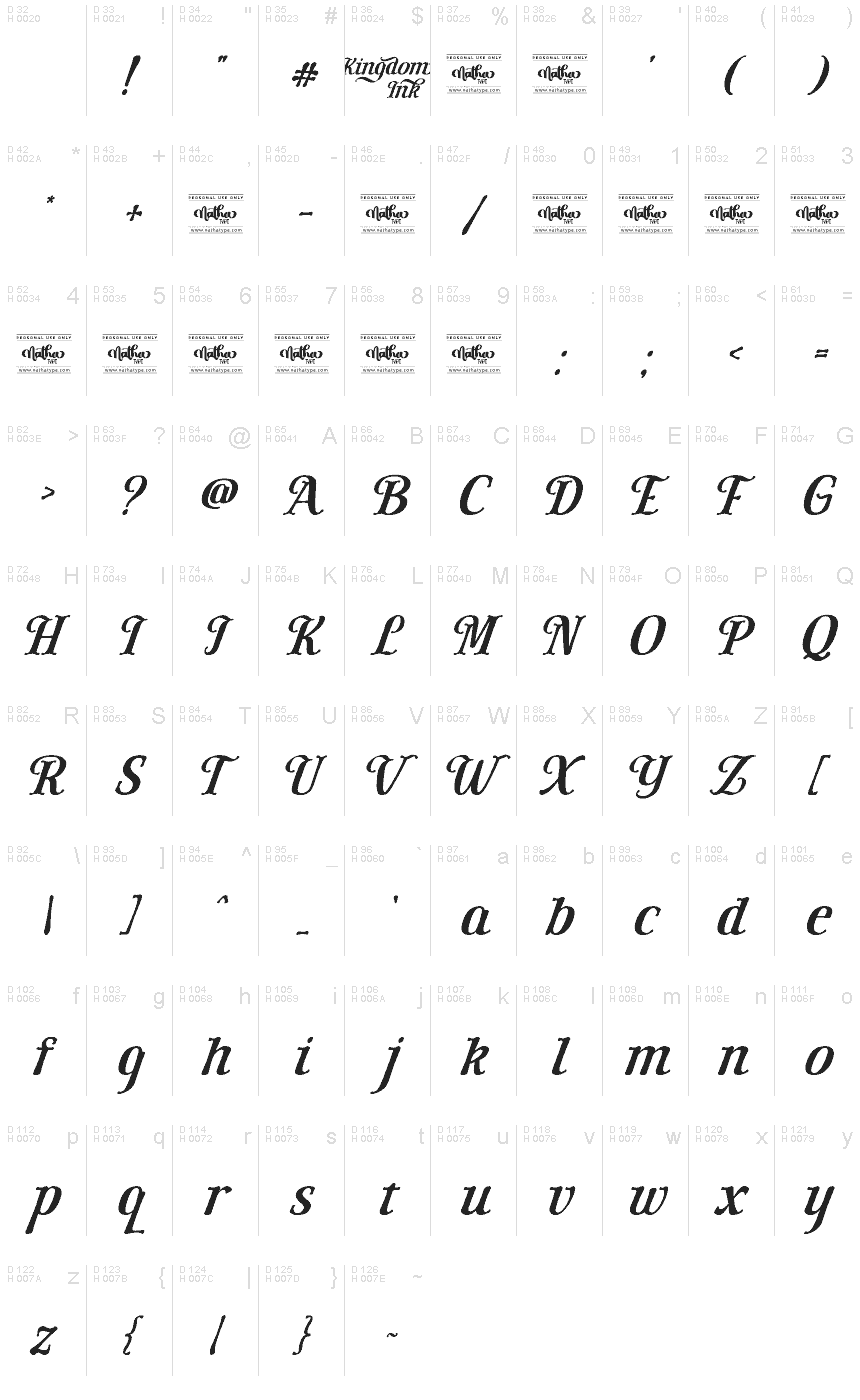
Kingdom Ink Personal Use
Kingdom Ink font designed by Nathatype is a stunning free brush font that will instantly appeal to your senses. The elegant, sophisticated, and classic look of this font is well complemented by its flowing appearance which ensures harmony and traditional appeal. Each character is beautifully formed with fine textures to present the best possible result in professional design projects.
Use Kingdom Ink in business cards, invitations, posters or branding projects for clothing lines, cafes or spas. It can be also great when used on blogs along with logos either for personal use or commercial purposes. Labels of products like cosmetics are also wonderful applications of this versatile typeface.